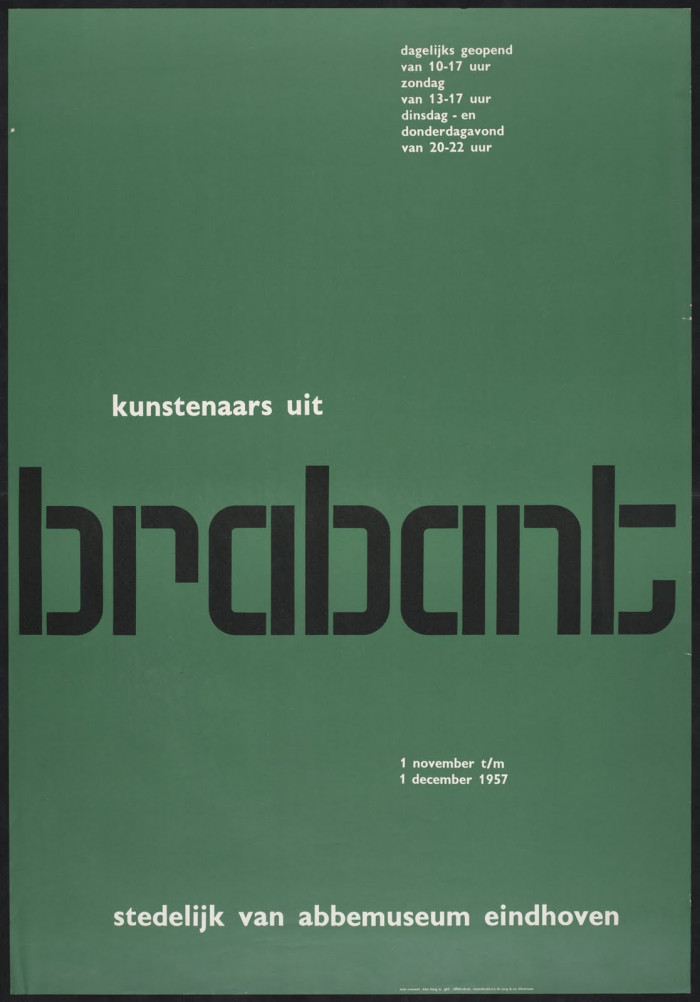
• What suposed to be a revival of the "1957 Stedelijk Van Abbemuseum, Eindhoven Brabant" poster, original work by Wim Crouwel, actually failed terribly since I never peeked at the original while I made this (thought i had it well preserved in my memory, but seems I did not).
Nonetheless It isn't a bad font I guess, so...
The original as was designed by Wim Crouwel
Wim remakes are always awesome